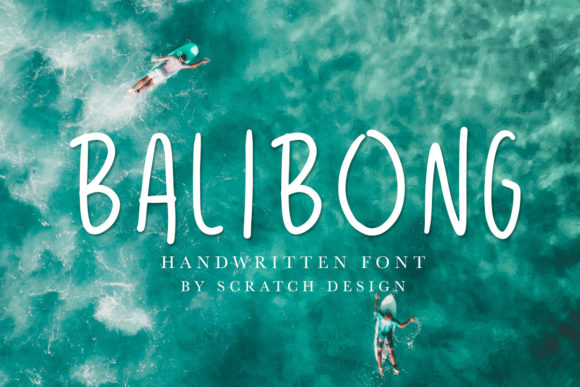
Balibong Font
About Balibong Font
Balibong is a casual and sporty handwritten font with a natural feel. It will add a chill and cool feel to any design project!